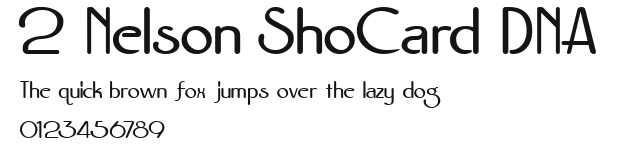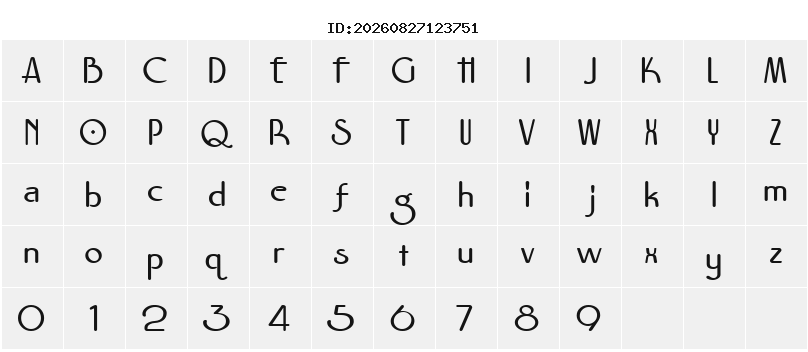
• Font Name: 2 Nelson ShoCard DNA
About 2 Nelson ShoCard DNA.ttf
2 Nelson ShoCard DNA.ttf is a modern, elegant sans-serif font designed for ultimate readability and visual harmony. Perfect for branding, headlines, web design, and print materials.